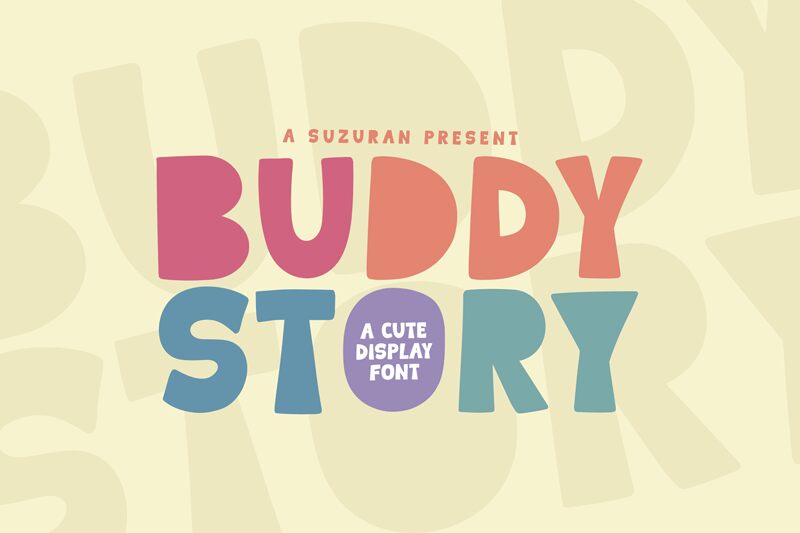
Buddy Story font by Khurasan is a free font with a cartoon style and a playful structure. The typeface is extremely cheerful as it integrates several fun elements into the design of every letter. Rounded with vibrant forms, the letters are made to inspire joy for both the designer and the viewer, which is why you’ll find Buddy Story to be noticed in a heartbeat. It comes with multiple combinations to be tried and all achieve a beautiful humane effect.
A youthful font like Buddy Story is useful wherever you intend to introduce a fun side with cartoons or comics heading the list. Create posters and advertising banners for your favorite movies or share a sneak peek at the new and improved favorite place. It can also be used for businesses with no visible target audience where a casual effect is needed.